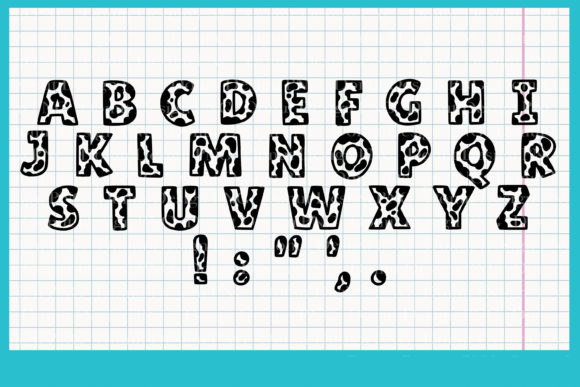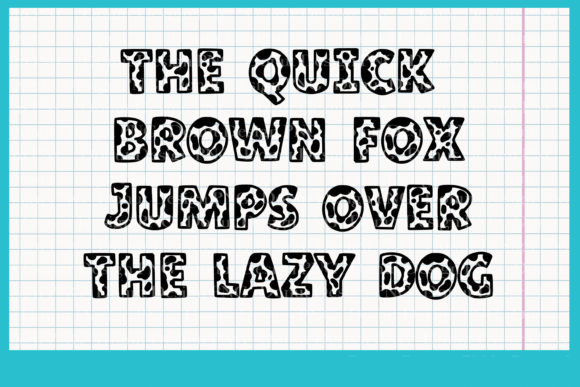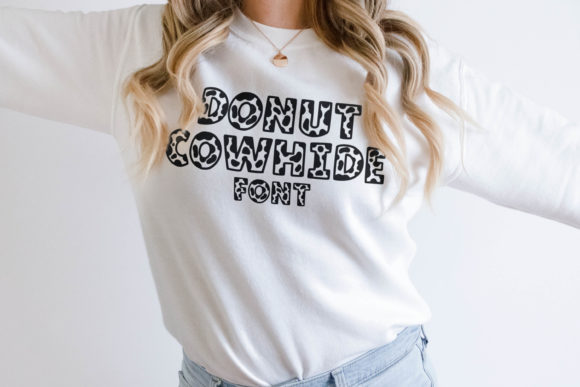
Introduction to Donut Cowhide Font
Donut Cowhide is a cute hand-drawn display font, great for creating outstanding designs.
This font is perfect for any of your projects, such as t-shirts, holiday cards, books, mugs, tumblers, and much more .
Why Choose Donut Cowhide Font?
Donut Cowhide Font offers exceptional quality and versatility, making it a valuable addition to your design toolkit. Whether you’re creating for personal projects or commercial use, Donut Cowhide Font delivers professional results.